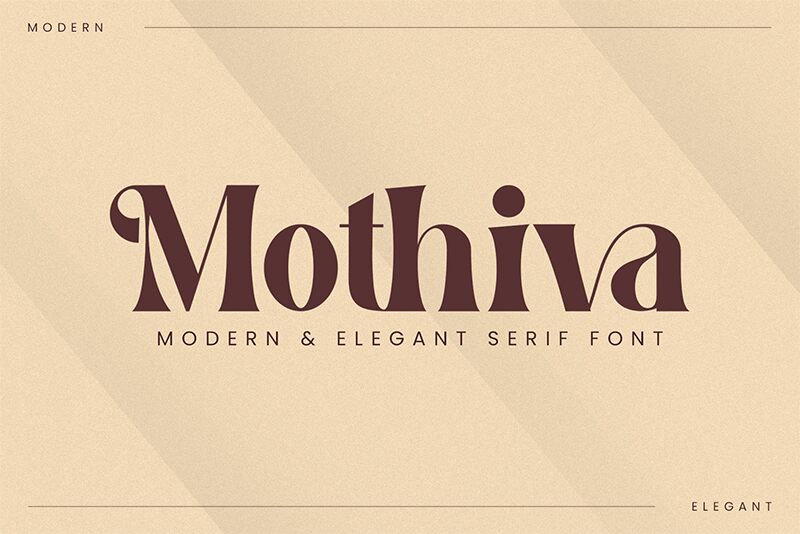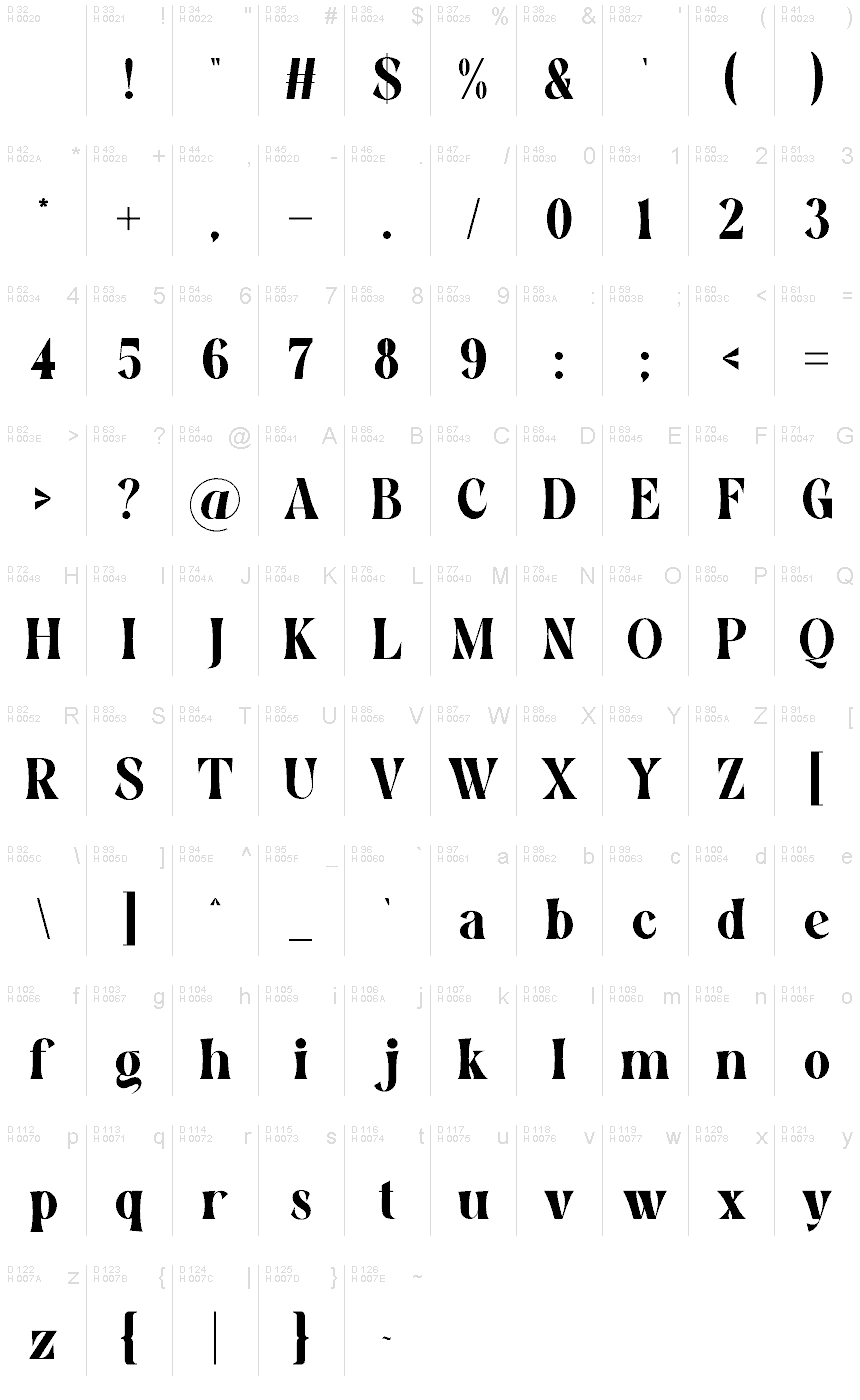
Mothiva
Mothiva font by Ahmad Riqi is a sophisticated, elegant and refined classic serif typeface with a simply beautiful charm. Modern elegance is portrayed in every letter silhouette, defined by the professional design and outstanding details presented by that font.
Notable for its versatile use cases, Mothiva will shine in website headers, product packaging, magazine covers & titles, branding projects and social media posts. Its sophistic visual is also great for cards and invitations (weddings), nursery posters & wall art plaques.